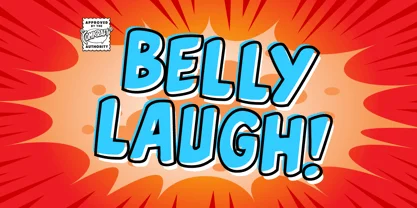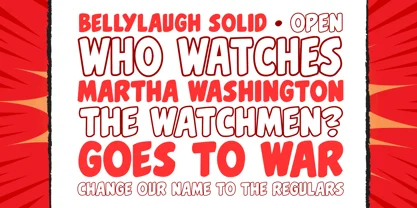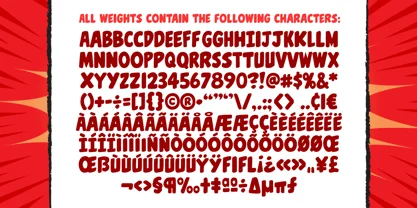
Belly Laugh Font
There is a particular satisfaction in finding a typeface that delivers optical balance across all weights without compromise. Belly Laugh consistently provides it. The typeface brings a versatile sensibility to a broad range of creative disciplines, with consistent type colour across continuous text that holds up whether the work is print-first or screen-first.
In practice, Belly Laugh proves particularly effective for editorial layouts, environmental graphics, product labels, signage systems, packaging design. Designers reaching for it find that the type decisions feel resolved rather than laboured — a useful quality when client timelines are tight.
Spacing and kerning pairs have been individually reviewed for the most common letter combinations in English and major European languages. The result is even type colour across continuous text, with no awkward gaps or collisions between adjacent characters.
The range of applications extends to brand identity systems, social media graphics, web design, logo design. That breadth is deliberate: the proportions and spacing were stress-tested across a wide range of mock briefs before the typeface was finalised.
Belly Laugh sits comfortably alongside both classic and contemporary typefaces in multi-font hierarchies. It takes direction rather than competing for attention — a quality that experienced designers know is harder to find than it appears.
Art directors commissioning type-led campaigns find Belly Laugh a reliable choice for projects that demand both personality and restraint. The design avoids the self-conscious quirkiness that dates quickly, settling instead for considered distinctiveness that holds up over time.